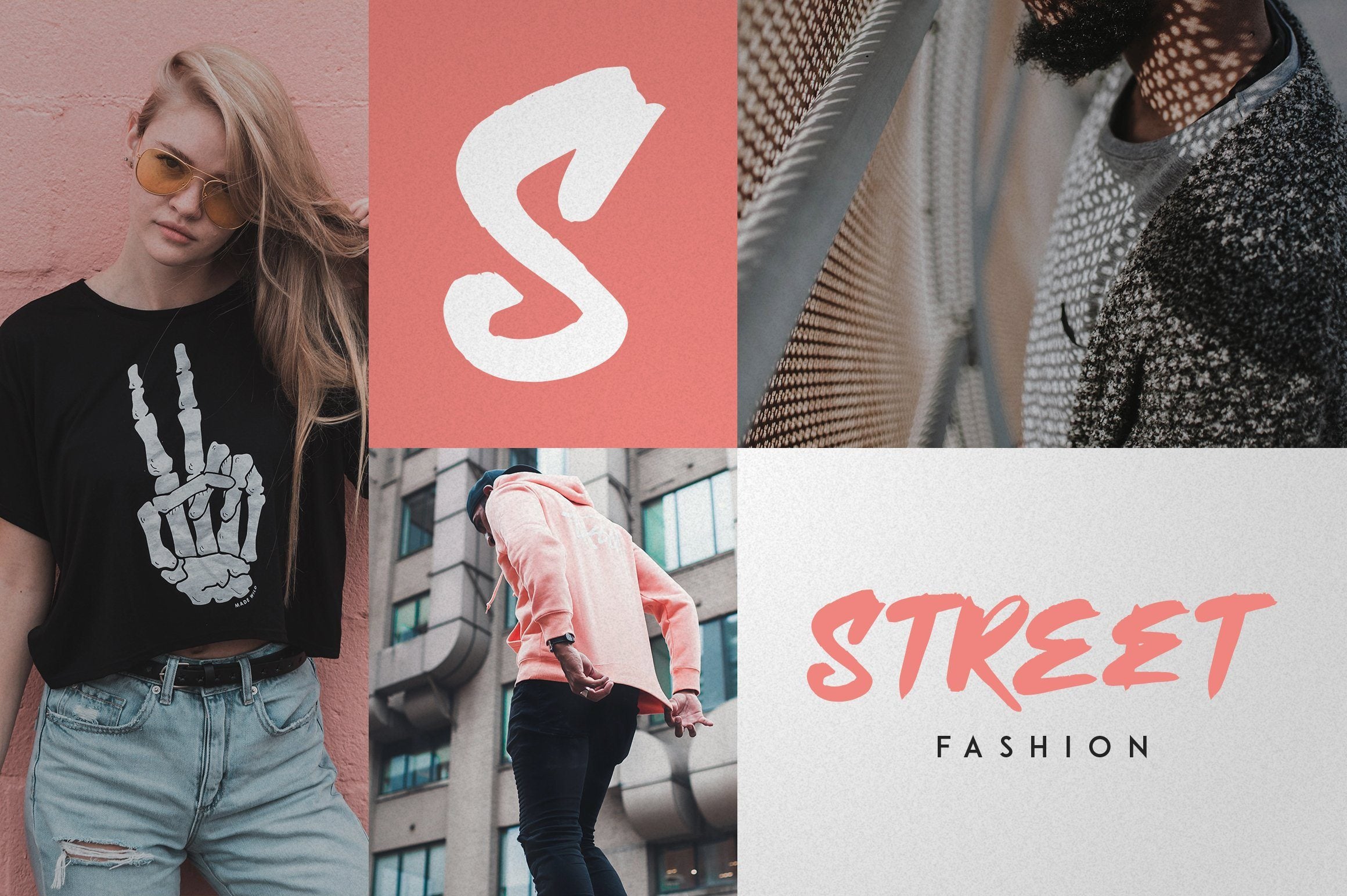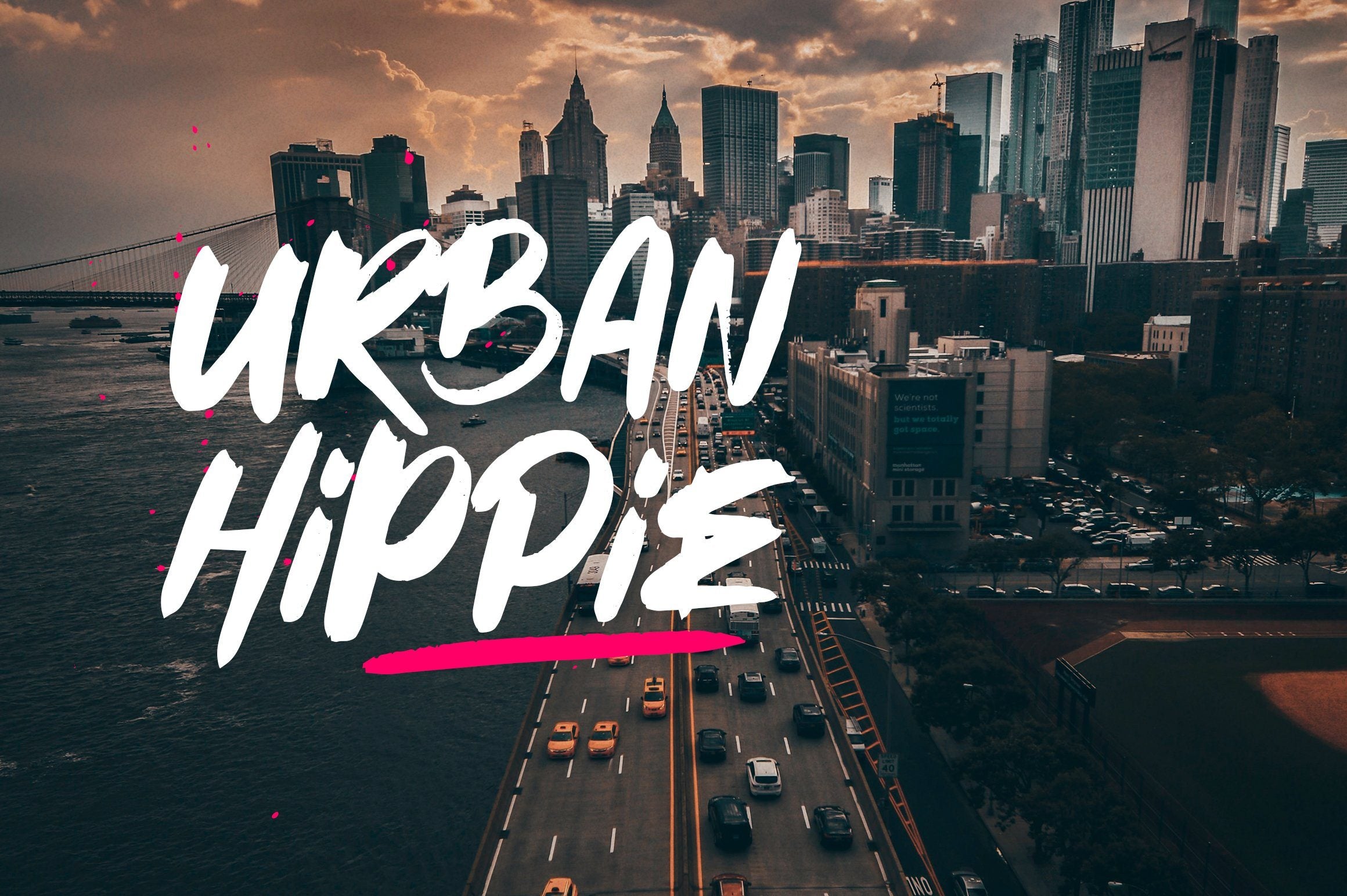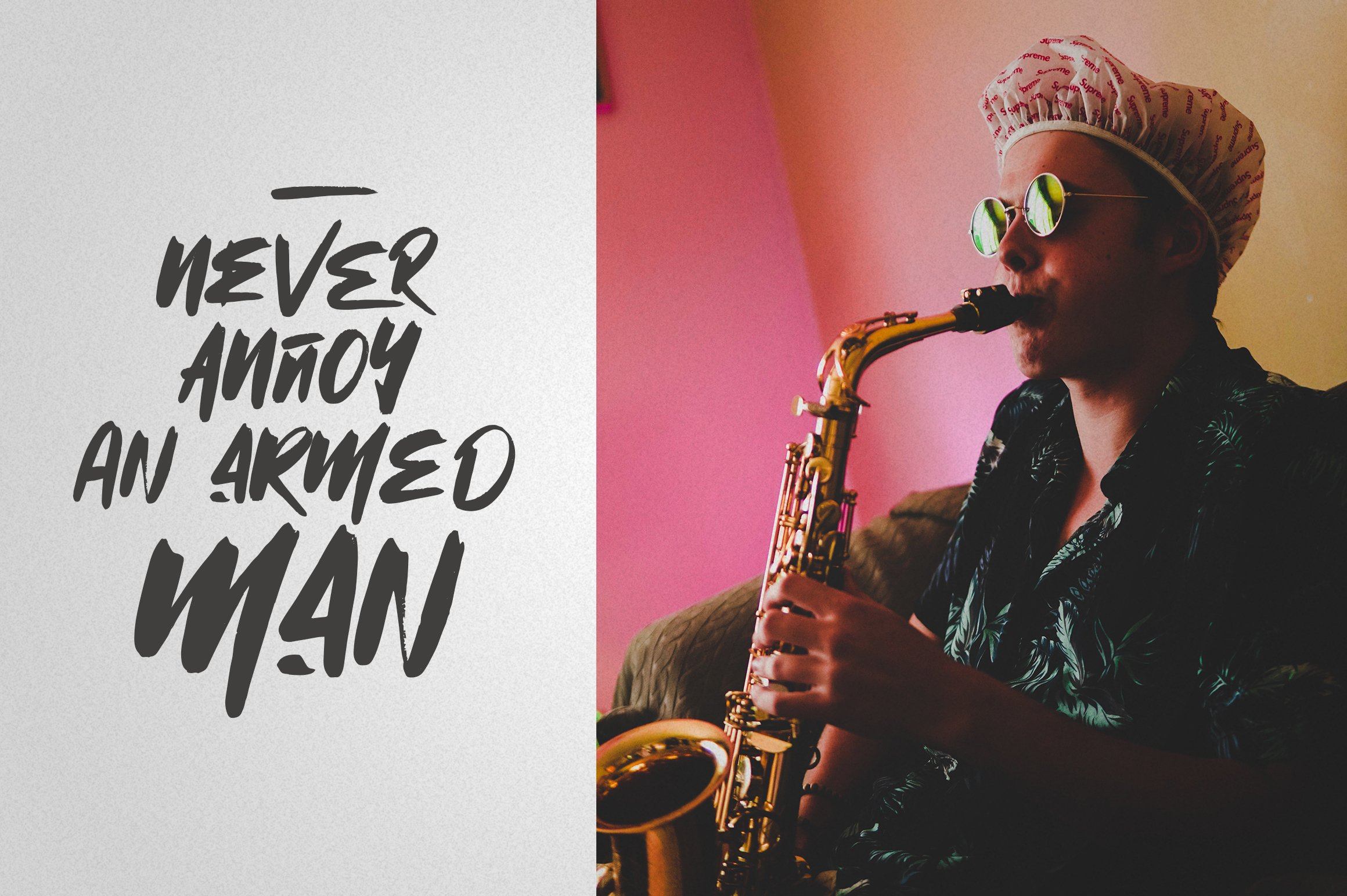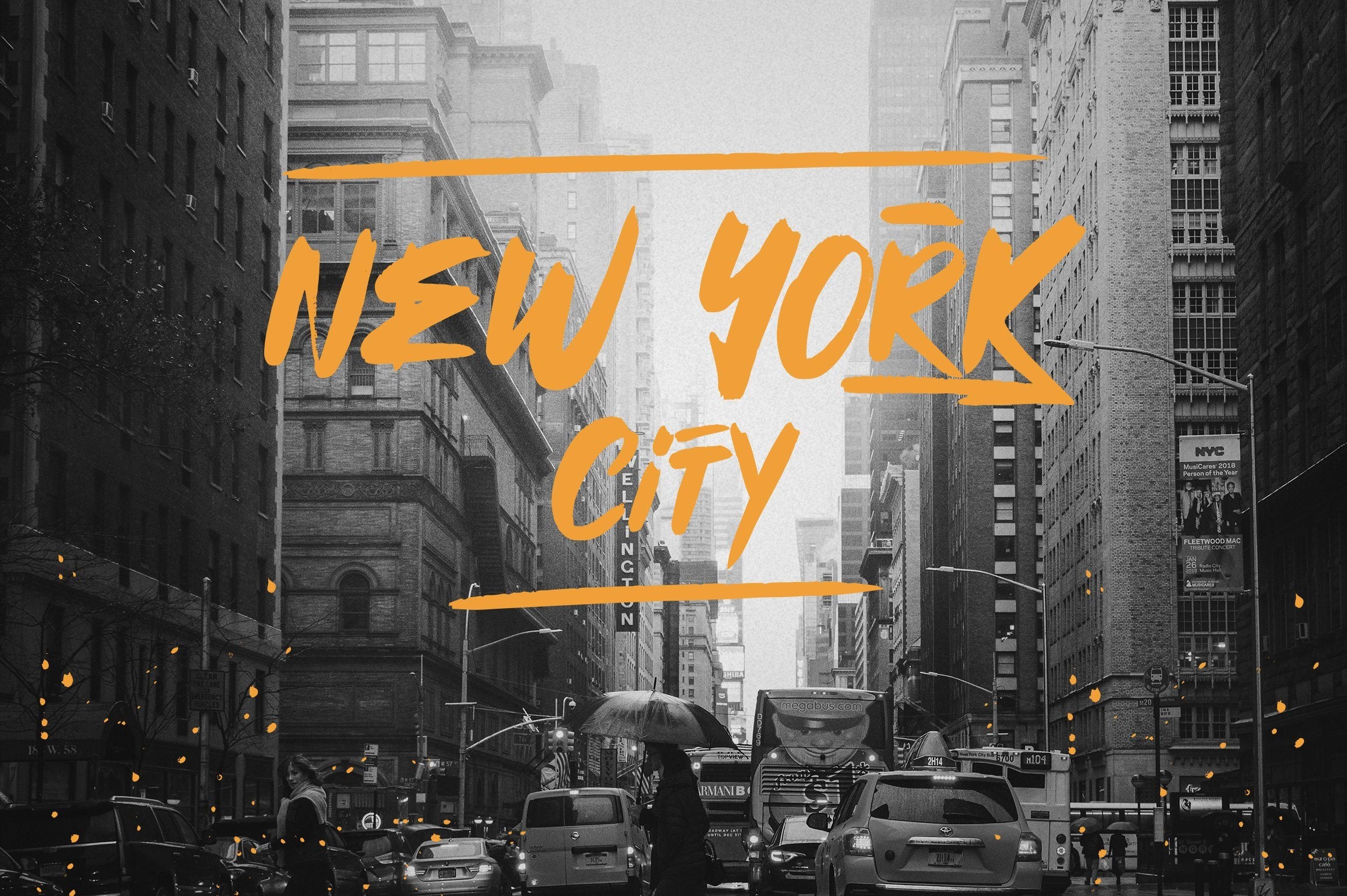
About Mischief – Brush font + Extras
Introducing Mischief – Brush font + Extras Mischief is brush, urban font with alternate glyphs, ligatures, swashes and multilingual support. It’s a very versatile font that works great in large and small sizes. Mischief is perfect for branding projects, home-ware designs, product packaging, magazine headers – or simply as a stylish text overlay to any background image. Uppercase, lowercase, numeral,punctuation & Symbol Alternate glyphs Ligatures 52 swashes Multilingual support How to access alternate glyphs? To access alternate glyphs in Adobe InDesign or Illustrator, choose Window Type & Tables Glyphs In Photoshop, choose Window Glyphs. In the panel that opens, click the Show menu and choose Alternates for Selection. Double-click an alternate’s thumbnail to swap them out. Feel free to contact me if you have any questions! Mock ups and backgrounds used are not included! Thank you! Enjoy!